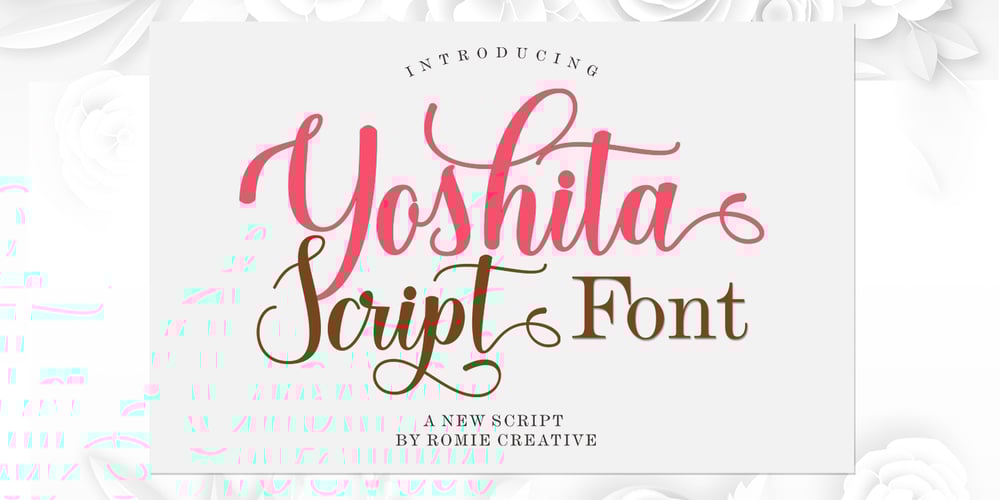
Yosyita Script Font Family was designed by Romi Rahmadi and published by Romie Creative. Yosyita Script contains 1 styles and family package options. Yoshita Script is a modern calligraphy design, including Regular. This typeface is normal and beautiful with swashes. It can be used for various purposes, such as logos, product packaging, wedding invitations, branding, headlines, signage, labels, signatures, book covers, posters, quotes, and more.Yoshita Script includes OpenType features, binders, and international support for most Western languages. To activate the OpenType Stylistic alternative, you request a program that supports OpenType features such as Adobe Illustrator CS, Adobe Indesign & CorelDraw X6-X7, Microsoft Word 2010 or newer versions. How to access all alternative characters using Adobe Illustrator:https://www.youtube.com/watch?v=XzwjMkbB-wQYoshita Script is coded with Unicode PUA, which allows access to all additional characters without having to install special software. Mac users can use Letter Books, and Windows users can use Character Maps to view and use one of the additional characters to enter their favorite text editor / application. How to access all your alternative characters, use Windows Character Map with Photoshop:https://www.youtube.com/watch?v=Go9vacoYmBwIf you need help or have questions, let me know. I am happy to help 🙂 Thank you & Happy Designing!